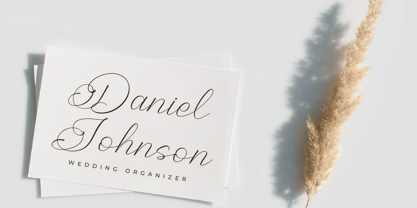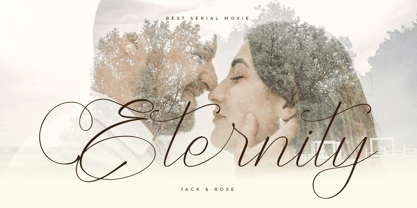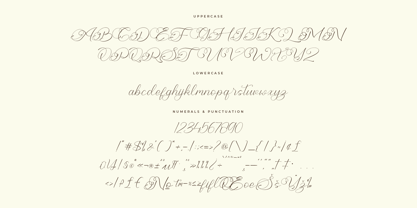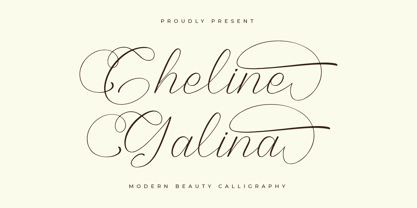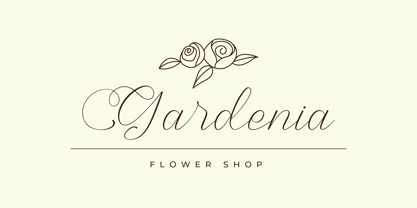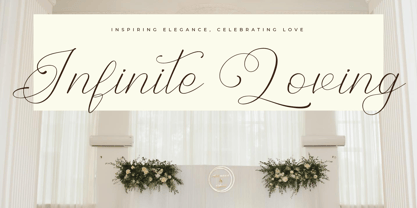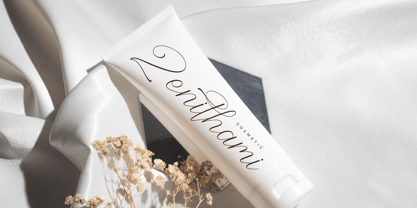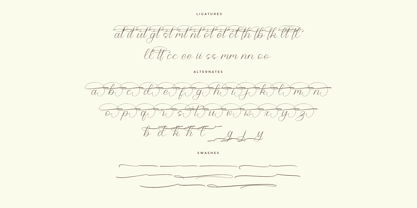
Cheline Galina
The Cheline Galina Font Family was designed by Heru Utama Putra and published by Letterena Studios. Cheline Galina contains 1 styles.
Cheline Galina – Modern Beauty Calligraphy , from Letterena, is a Luxury Script font, suitable for any projects such as: logos, branding projects, homeware designs, product packaging, mugs, quotes, posters, shopping bags, t-shirts, book covers, name card, invitation cards, greeting cards, label, photography, watermark, special events, and all your other luxury and beautiful projects that need a Luxury Script taste.